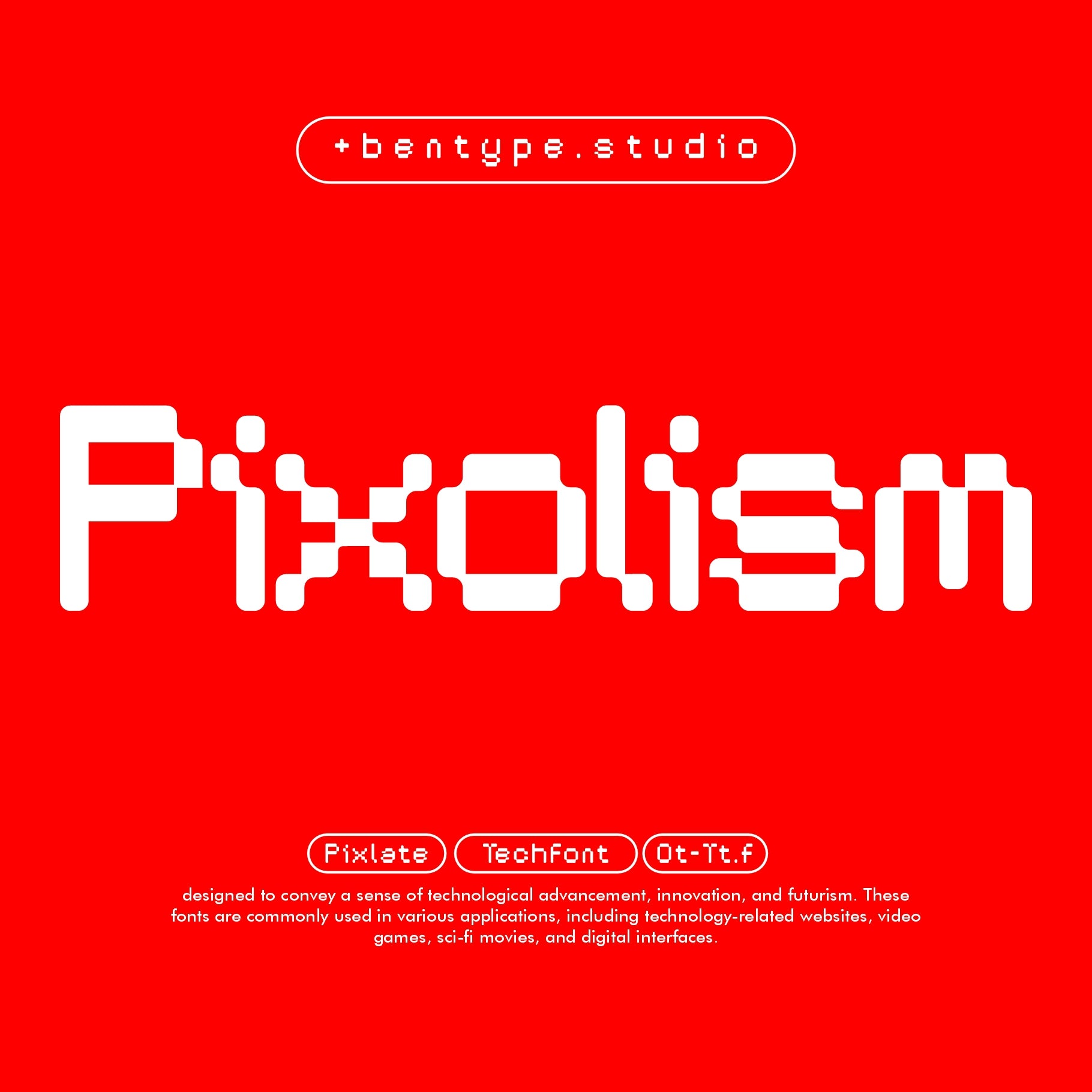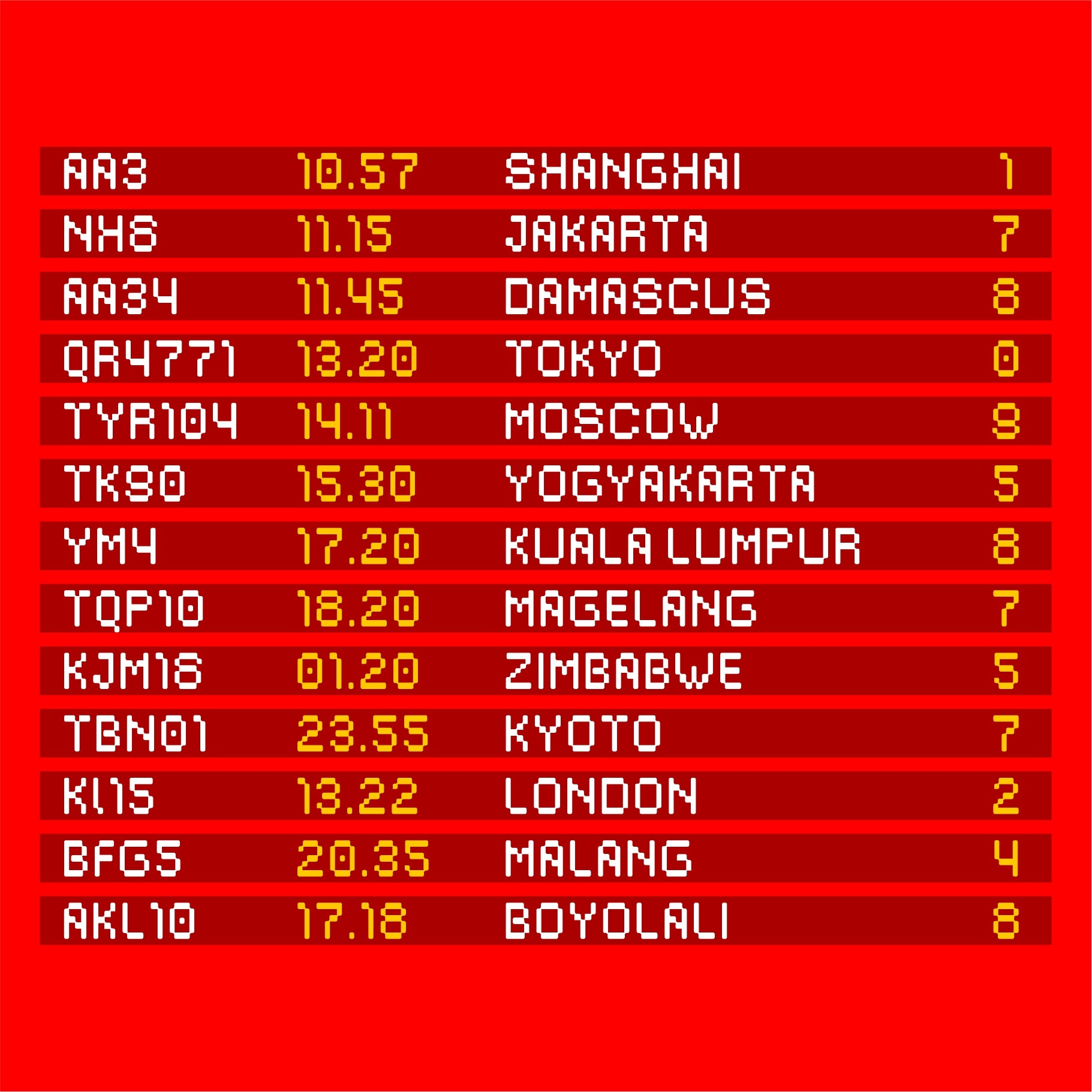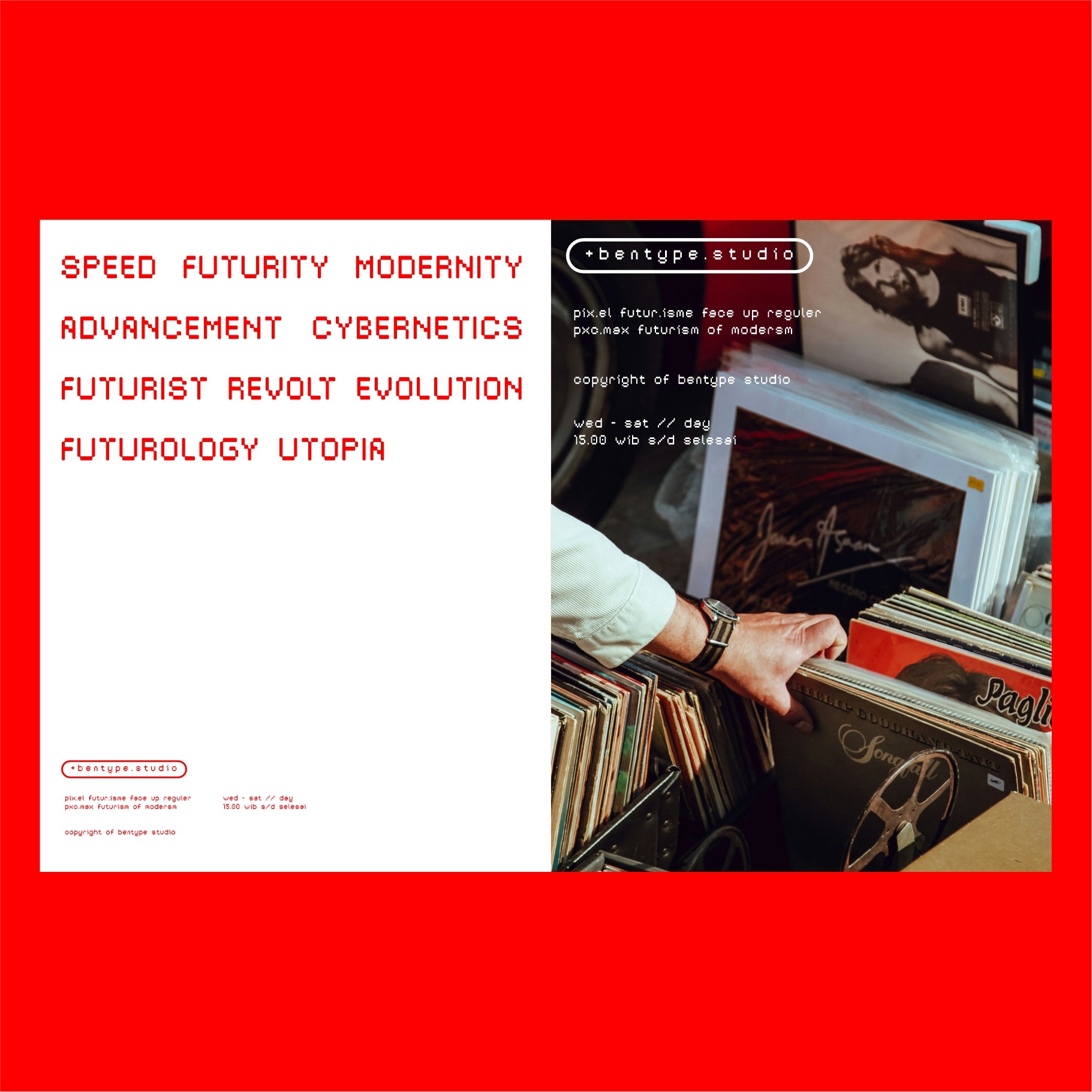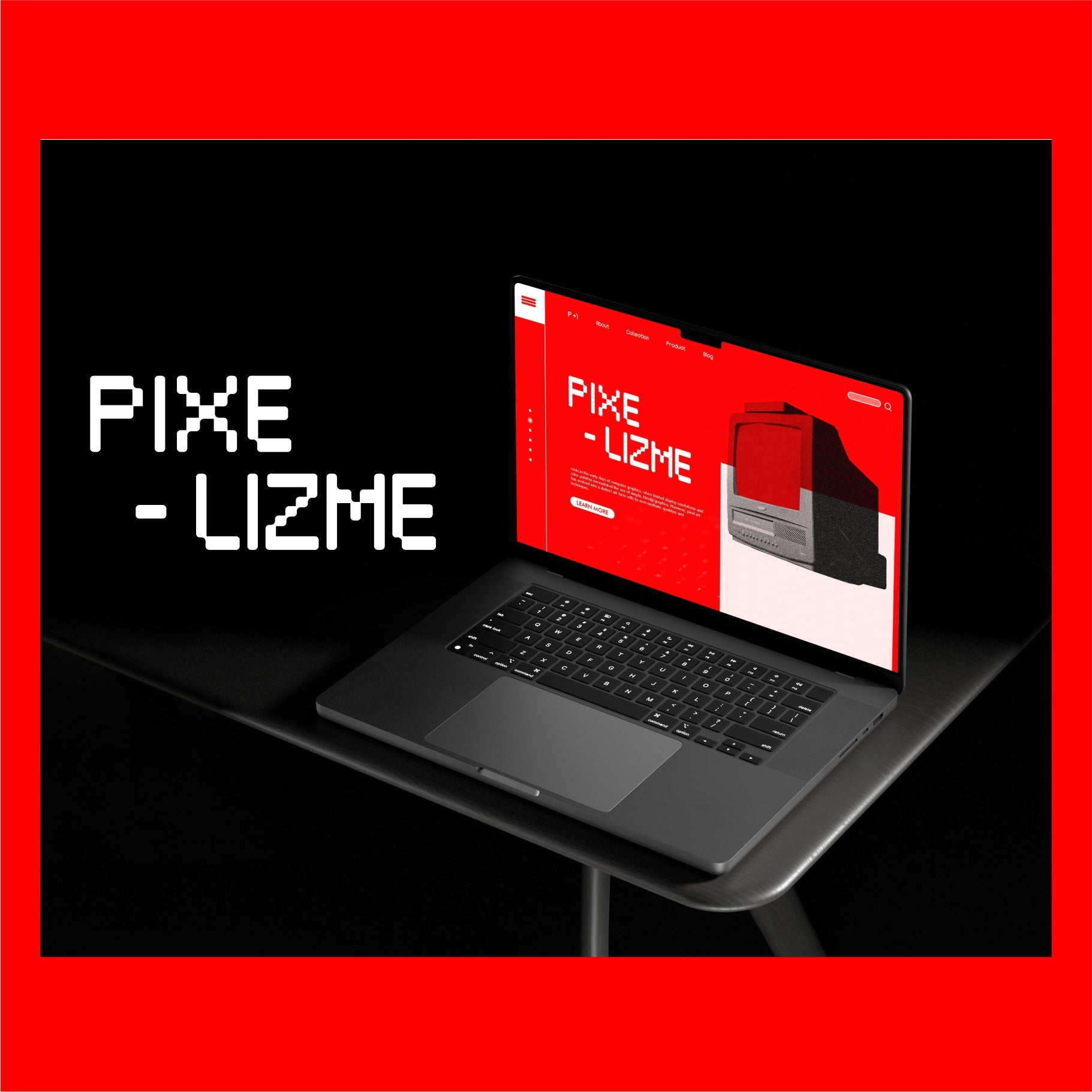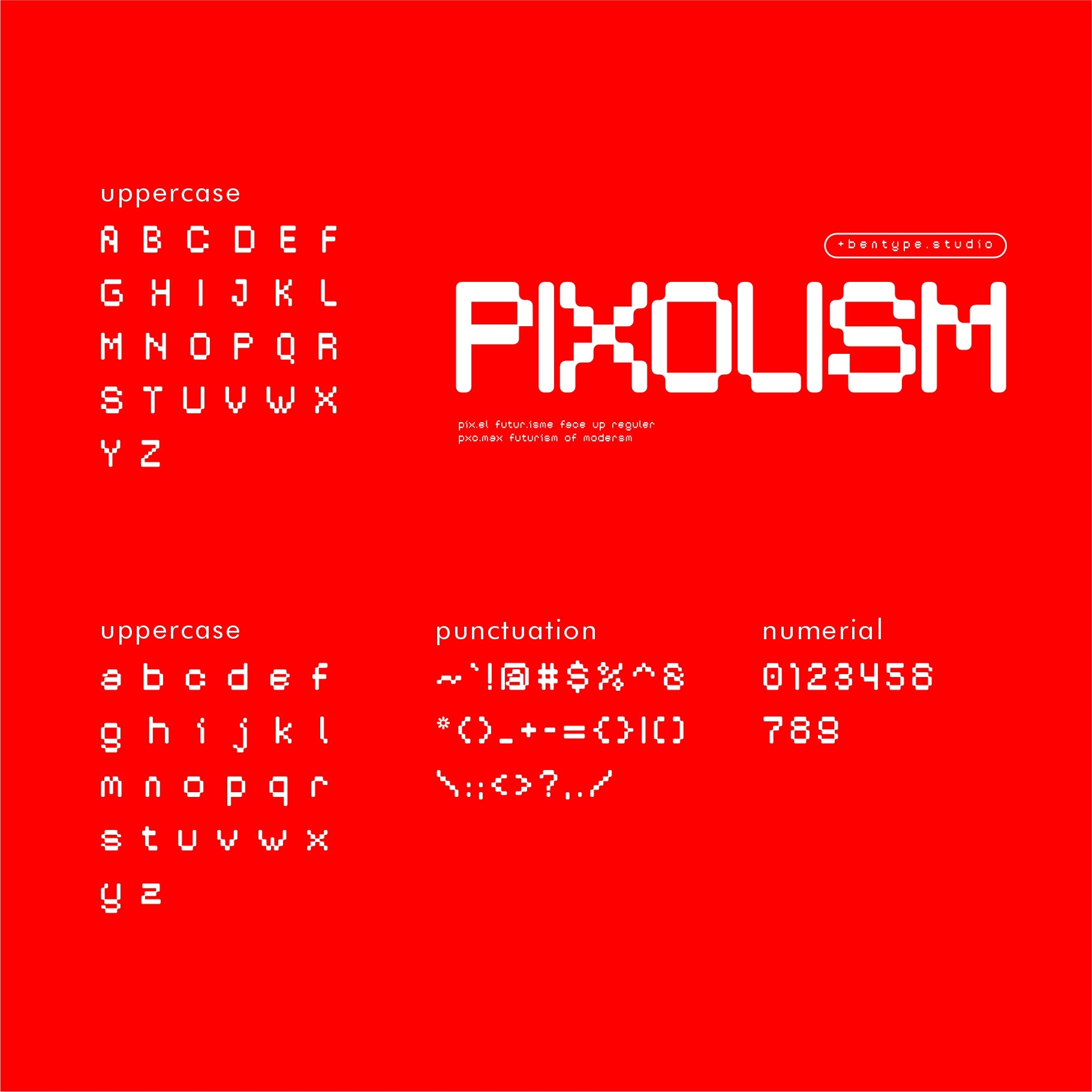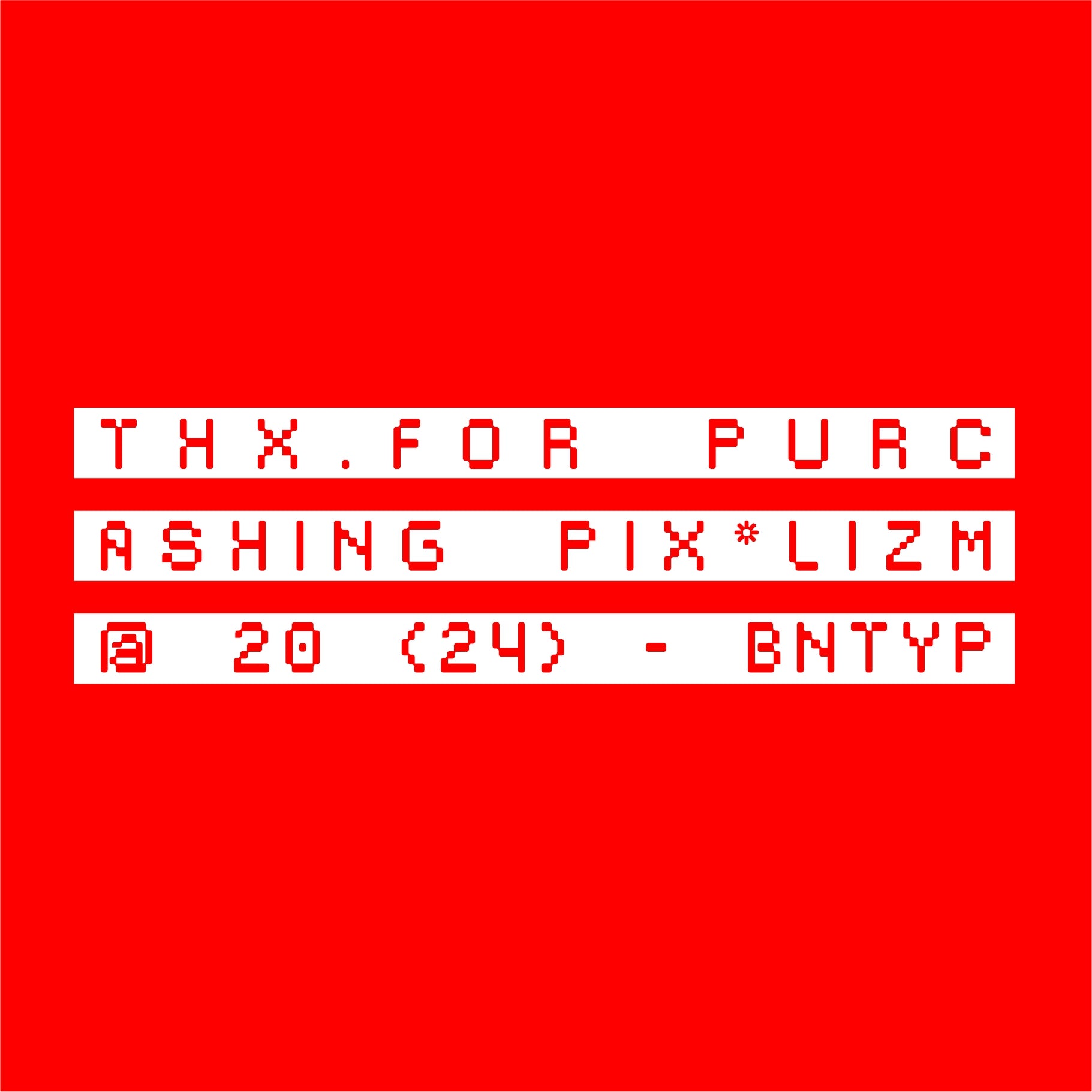
Pixolism - Tech Font Display
Bentype Studio
Pixolism - tech font display is a unique and specialized typeface option, particularly suited for digital projects where a retro aesthetic or low-resolution display is desired. Despite their limitations in character set and resolution, pixel fonts remain popular among designers for their distinct visual appeal and nostalgic charm.
Pixolism - Tech Font Display is a pixel-style typeface featuring upper case, lower case, numbers, and punctuation. It is designed with a retro, low-resolution aesthetic suited for digital applications.